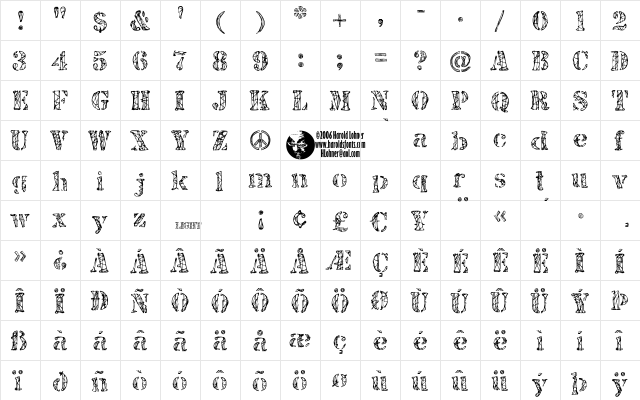
JJStencil Light Regular
Design Context for JJStencil Light Typeface
JJStencil Light has the rough pragmatism of spray-painted stencil signage, adding a raw, street-level authenticity to designs. Its slender proportions lend an understated elegance to any composition.
Ideal for industrial branding, streetwear, military-adjacent aesthetics, and urban signage projects.
Pro Tip: Pair JJStencil Light with raw, utilitarian design elements — exposed concrete textures, flat colour, and minimal ornamentation suit it well.